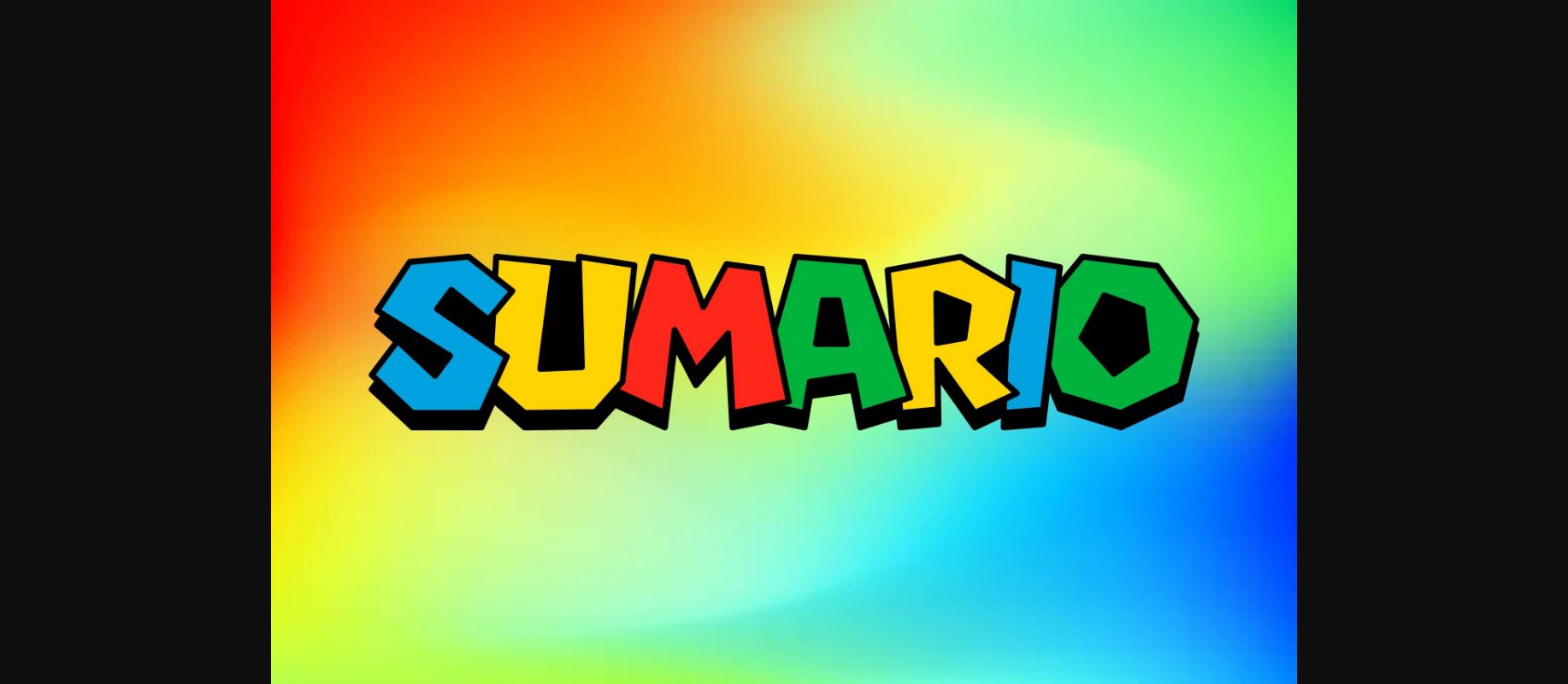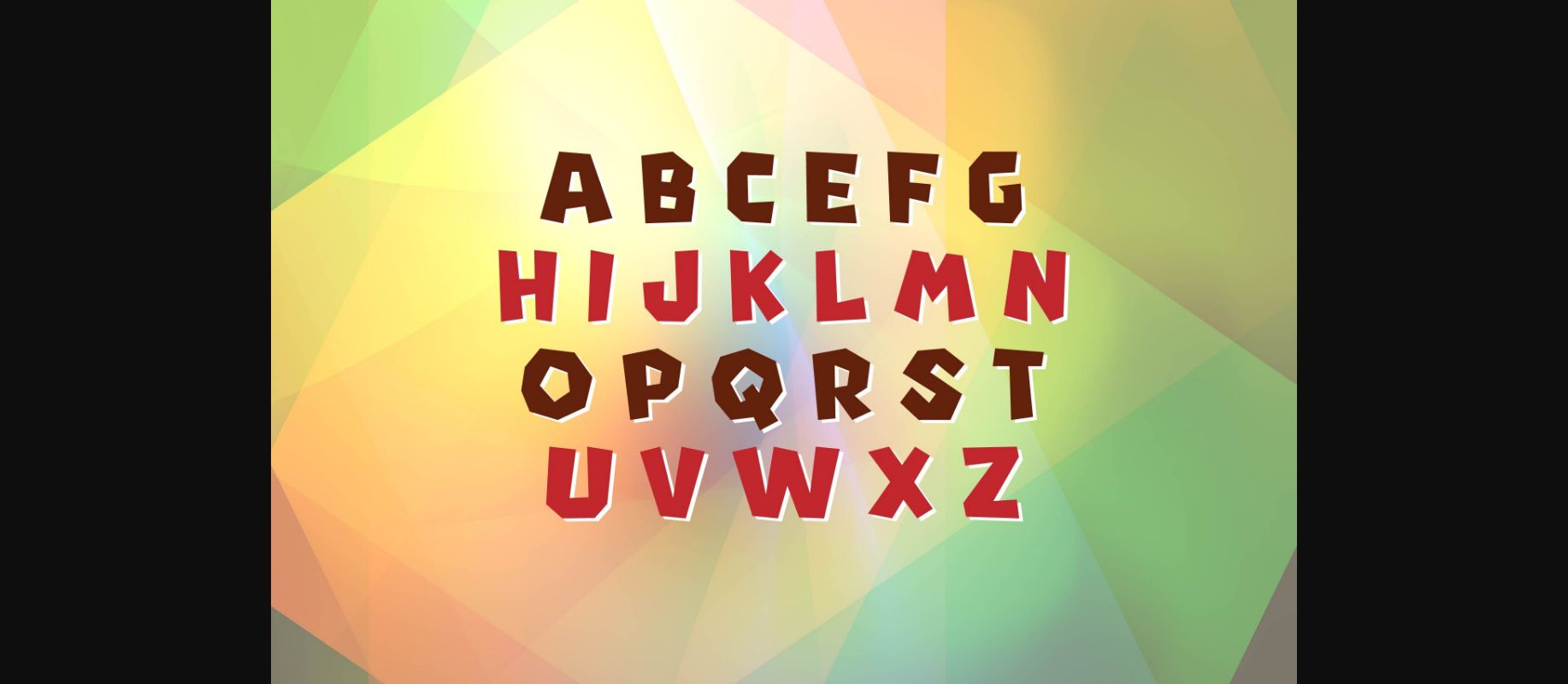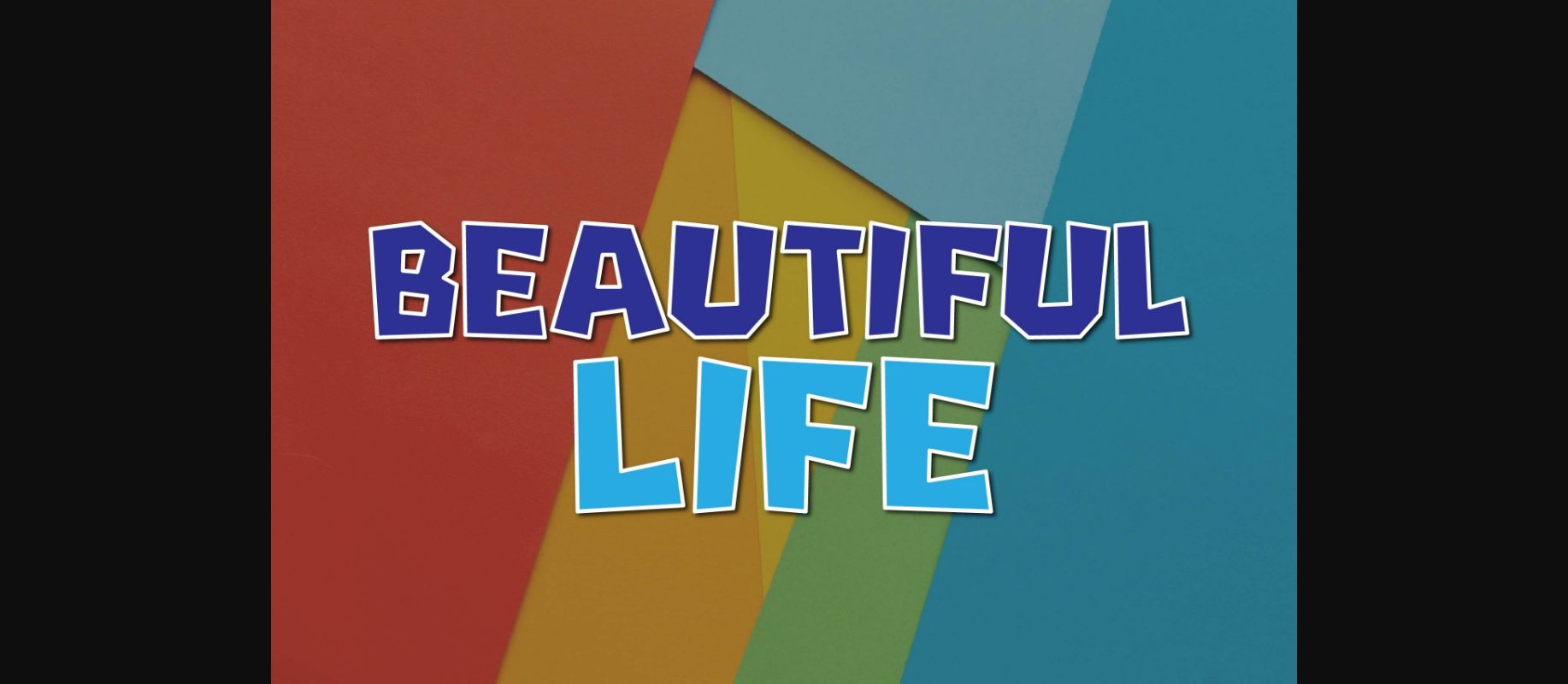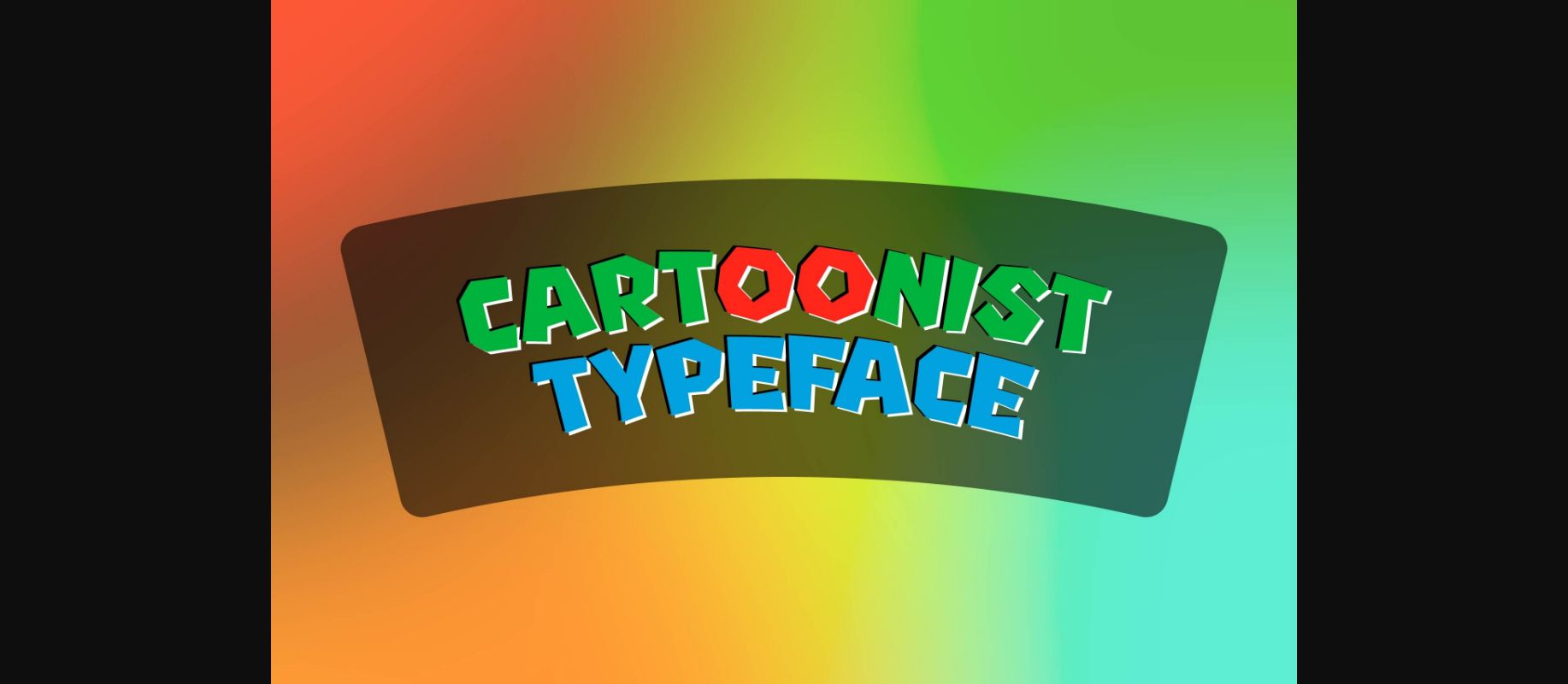
Sumario Font
About Sumario Font
Unveil the charm of Sumario, a Gothic-crafted Stylish Decorative Font radiating Cartoon Quality. Tailored for Movie titles, Cartoon and Game names, as well as T-shirt designs, Sumario is a versatile artistic tool. With 96 meticulously crafted glyphs and 95 characters, it transforms ordinary expressions into extraordinary visual statements, making it the ideal choice for those seeking a dynamic fusion of style and creativity in diverse design applications.